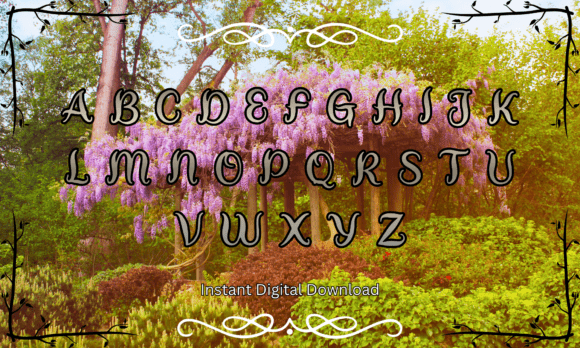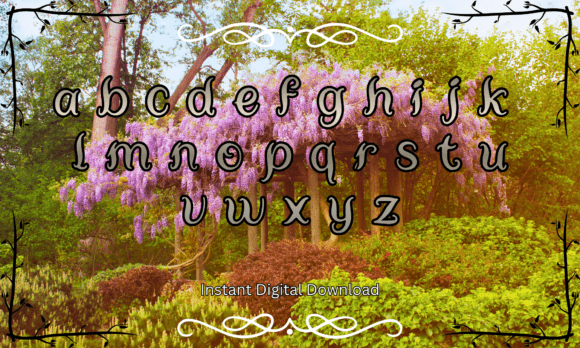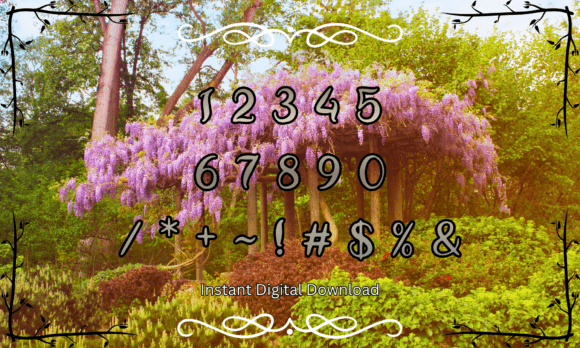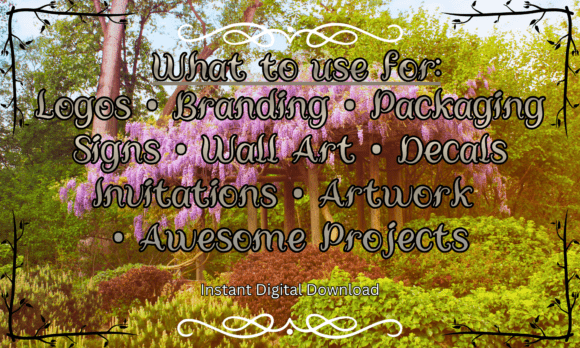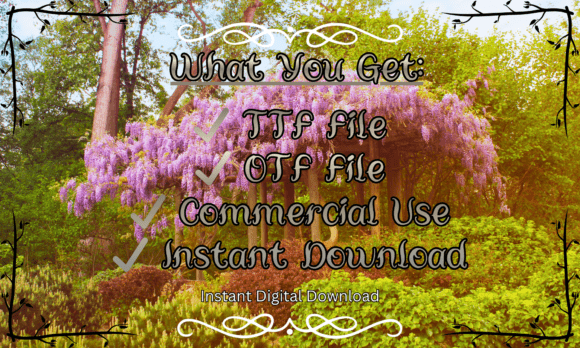
Step into a World of Magic with Elven Moonlight Font
Are you ready to add a touch of whimsy and fantasy to your designs? Look no further than the Elven Moonlight Font, a beautiful and enchanting typeface that will transport you to a world of magic and wonder. This soft and romantic font is perfect for creating designs that feel fantasy-inspired, elegant, and beautifully organic.
A Whimsical, Nature-Inspired Font
Elven Moonlight Font is a whimsical script font that draws inspiration from nature and the fantasy world. Its soft curves and enchanting charm make it perfect for designs that require a touch of elegance and sophistication. Whether you’re designing for weddings, storytelling, or cozy cottagecore aesthetics, this font adds a touch of moonlit elegance and woodland magic to your projects.
Elven Moonlight Font is versatile and can be used for a wide range of design projects, including:
- Wedding Invitations: Add a touch of romance and elegance to your wedding invitations and stationery.
- Fantasy & Storybook Designs: Bring your fantasy and storybook designs to life with a font that feels like it was plucked straight from the pages of a fairy tale.
- Cottagecore Branding: Create charming and inviting branding that feels cozy and welcoming.
- Nature-Themed Projects: Add a touch of the natural world to your designs with a font that feels like it was inspired by the forest.
- Logos & Small Businesses: Create a unique and memorable logo for your small business that stands out from the crowd.
- Wall Art & Prints: Add a touch of magic to your wall art and prints with a font that feels like it was written with a fairy’s wand.
- Stickers & Cricut Projects: Create charming and whimsical stickers and Cricut projects that are perfect for crafters and DIY enthusiasts.
- Uppercase & Lowercase Letters: A full set of uppercase and lowercase letters to help you create beautiful and varied designs.
- Numbers & Symbols: A set of numbers and symbols to help you add a touch of magic to your designs.
If you’re looking for a font that adds a touch of magic and whimsy to your designs, look no further than Elven Moonlight Font. With its soft curves, enchanting charm, and nature-inspired aesthetic, this font is perfect for a wide range of design projects. So why wait? Download Elven Moonlight Font today and start creating your own magical designs! πΏπ«